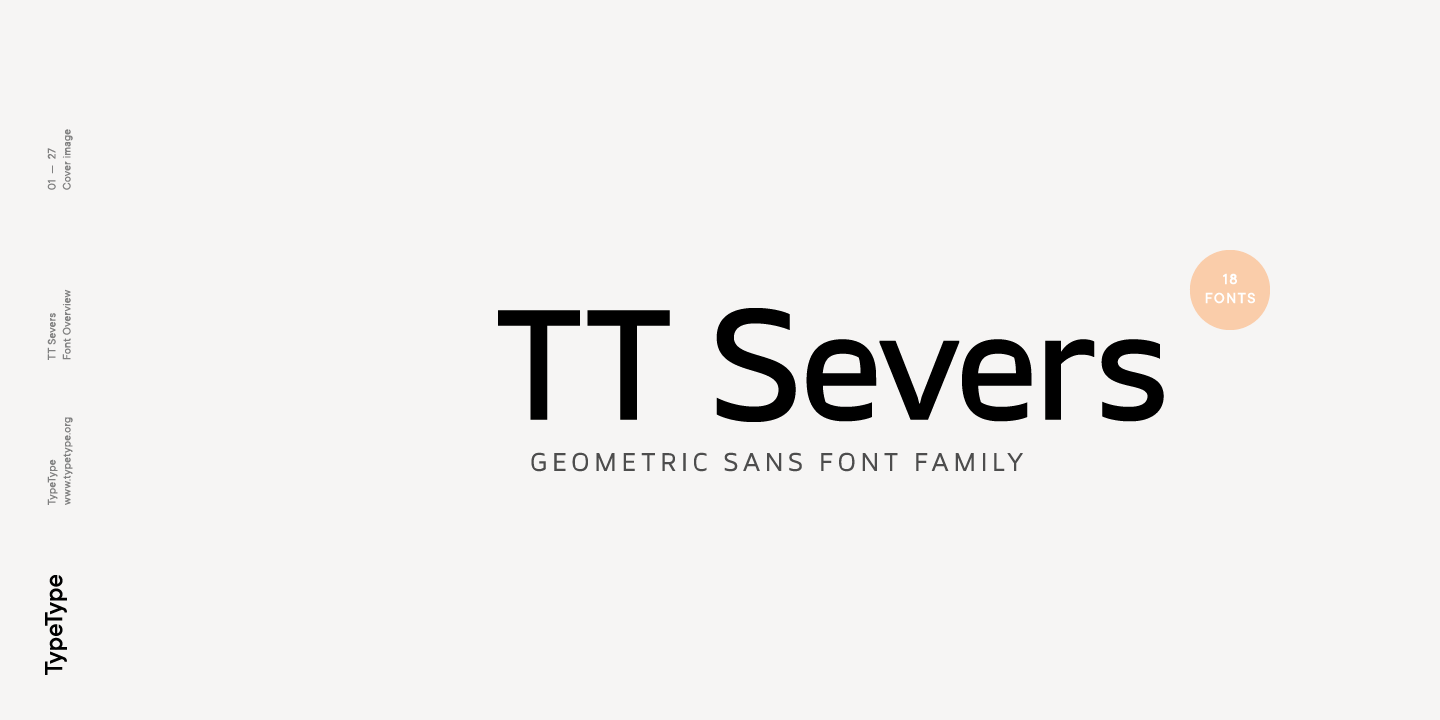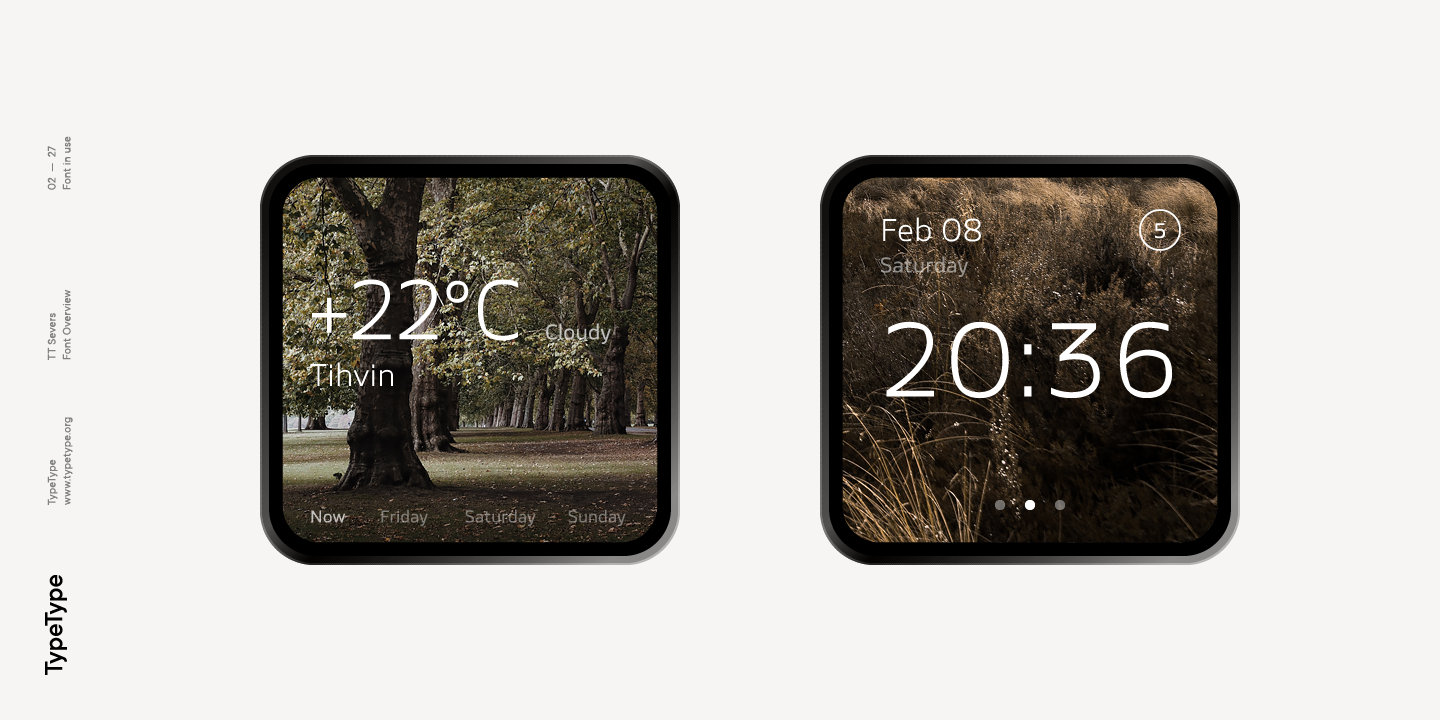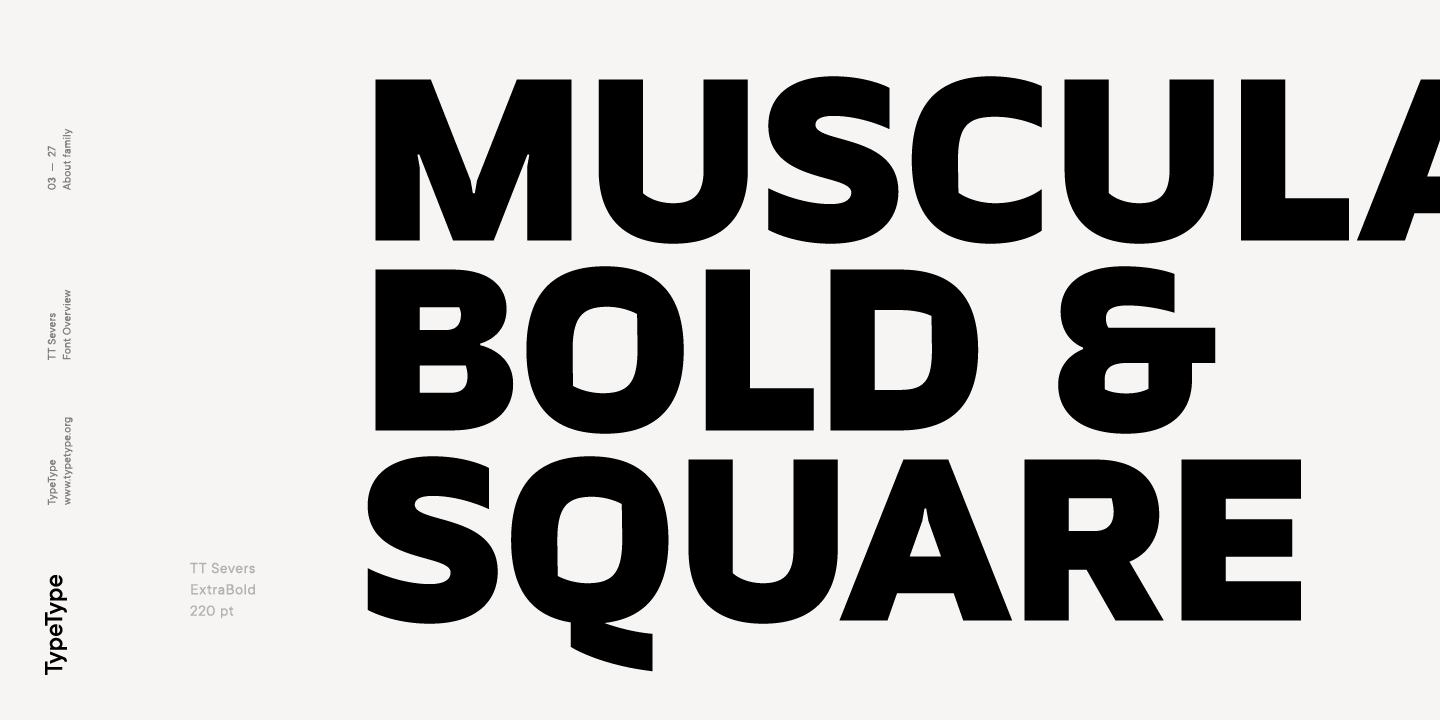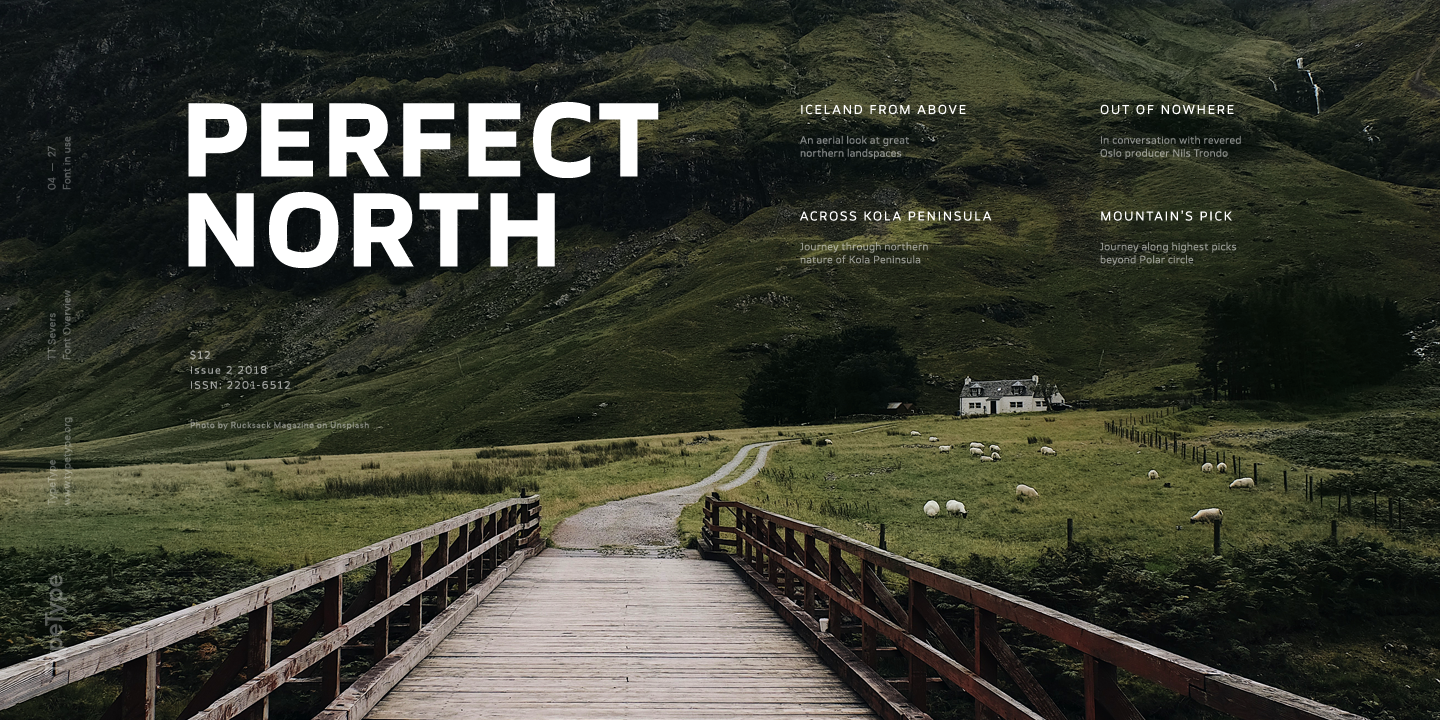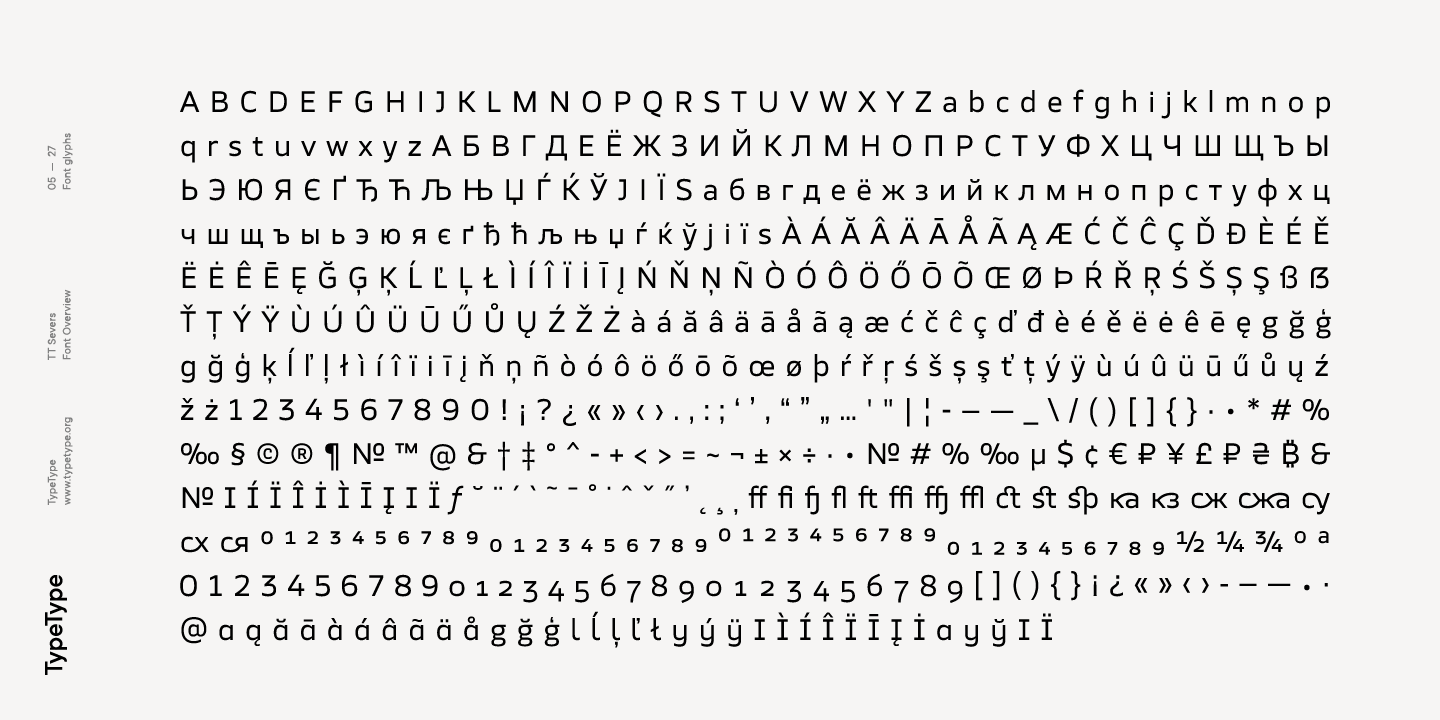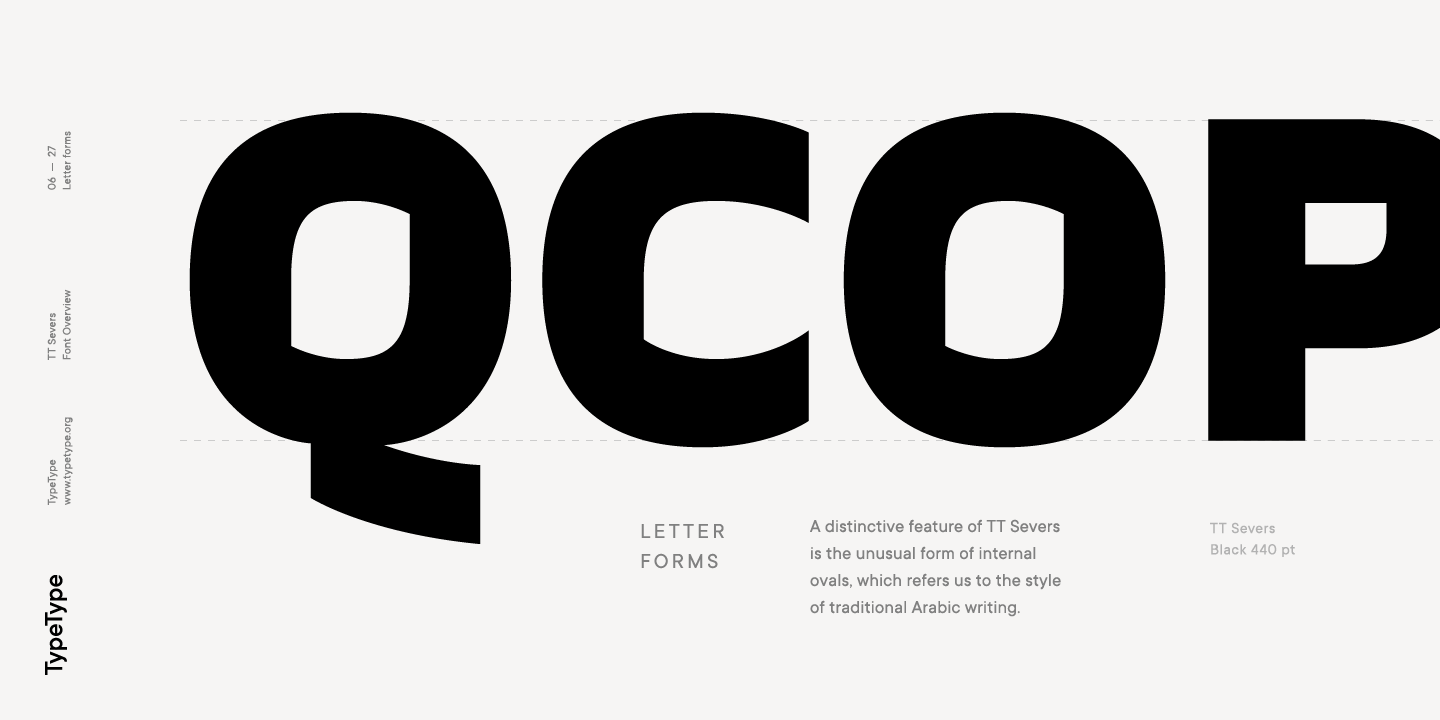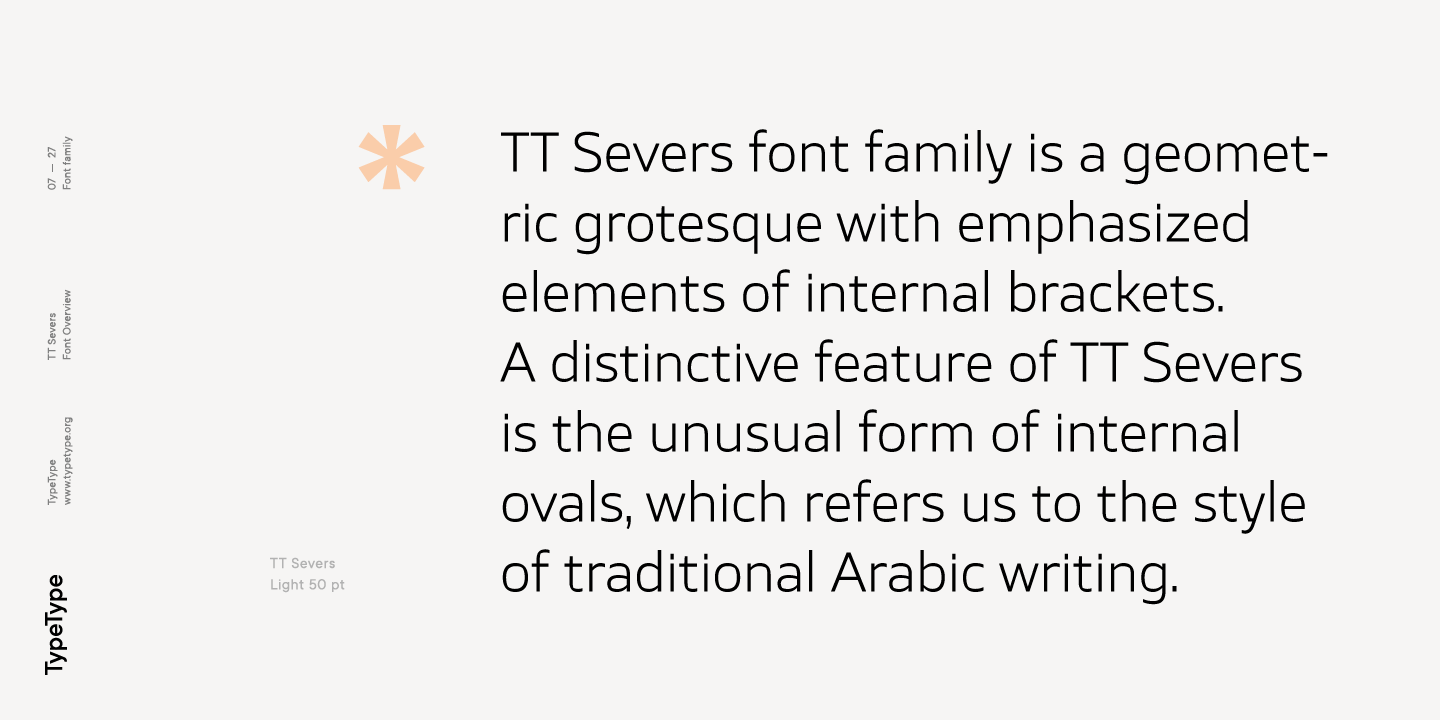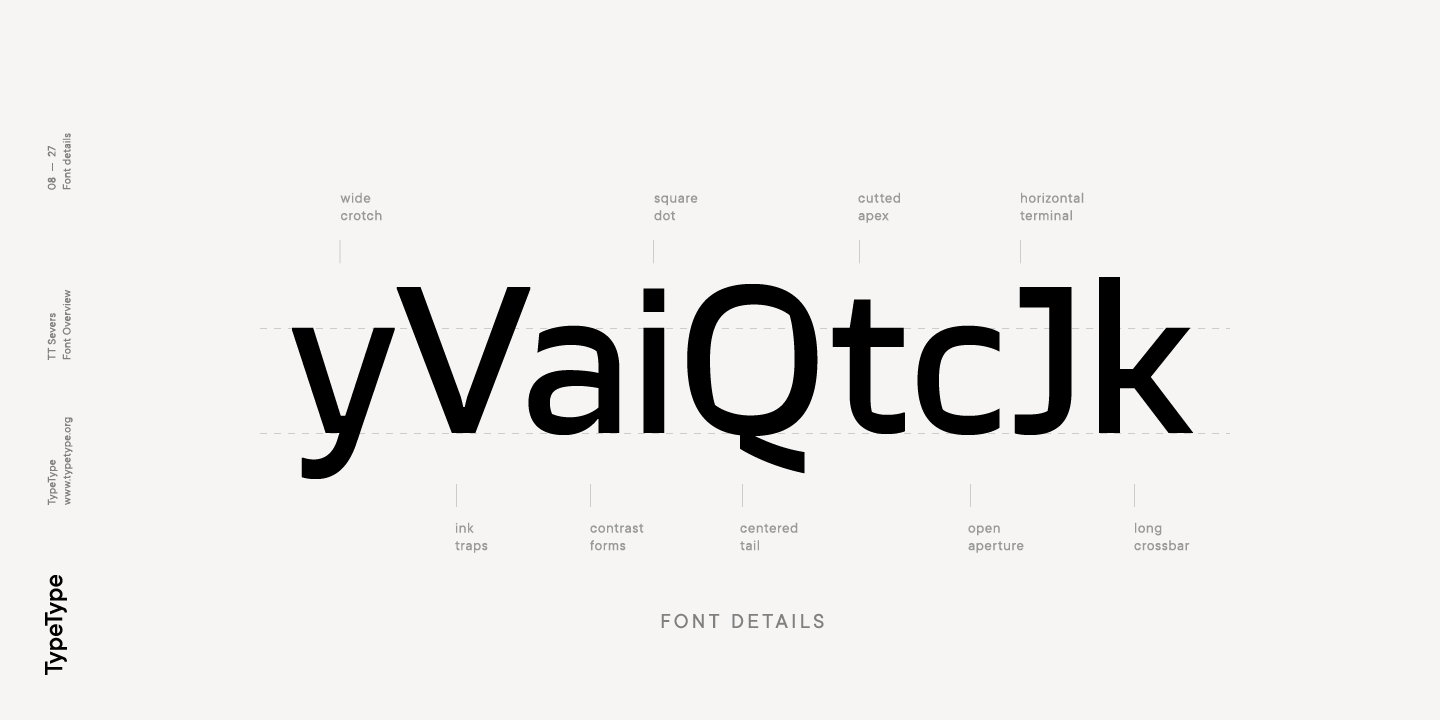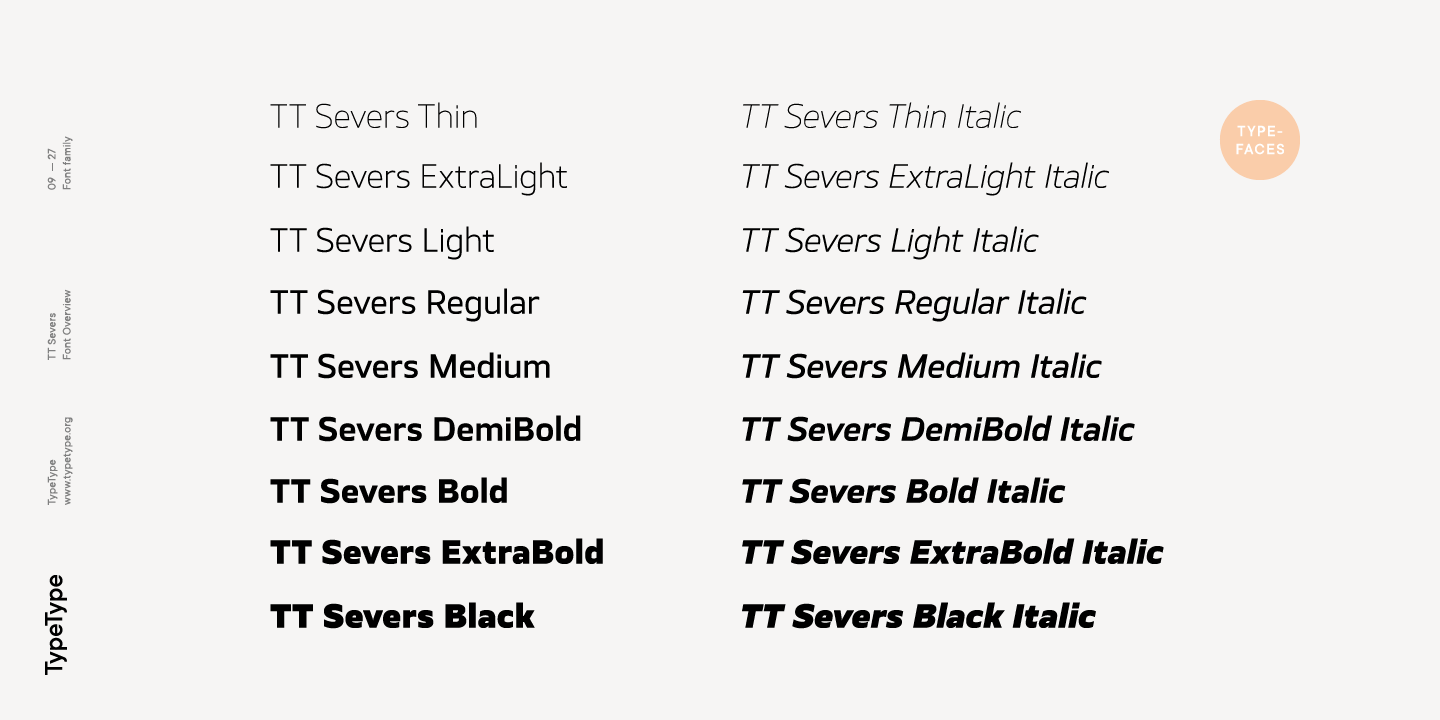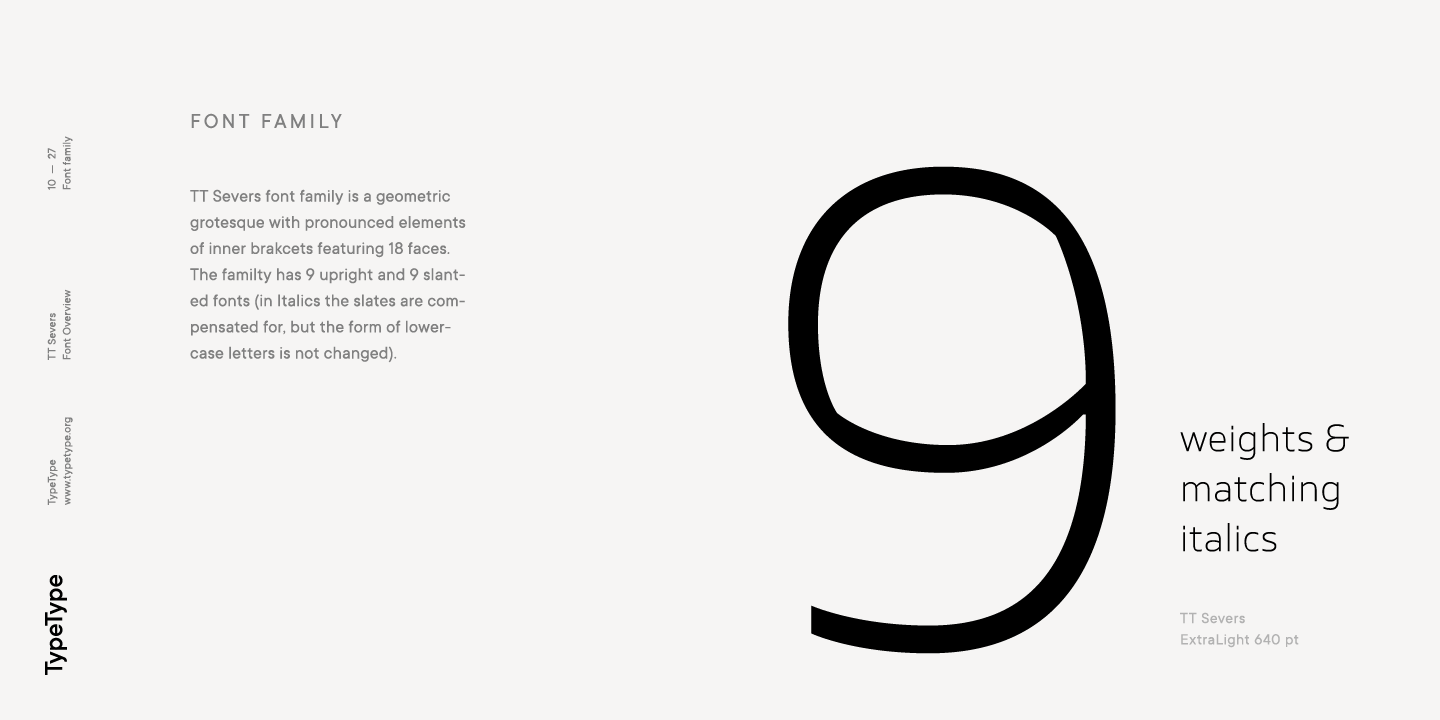
TT Severs Family (18 fonts)
TT Severs is a 2-in-1 font family. In a large body size, it works great as a display font, creating a distinctive character for logos and headings. At the same time, when TT Severs is used in a small body size or in large text arrays, the font’s peculiarities of bracket construction fade, and functions as a text font, thanks to both the low contrast between vertical/horizontal strokes and interaction of black and white letter elements.
The font family TT Severs includes 18 fonts, each of which consists of 558 glyphs. The family has standard and discrete ligatures, which include experimental ligatures for the Cyrillic alphabet. In addition, TT Severs can be made more humanis with stylistic alternates. As part of the font family, you will also find old-style figures and a large number of OT features such as case, ordn, sups, sinf, dnom, numr, onum, tnum, pnum, liga, dlig, salt (ss01), frac.